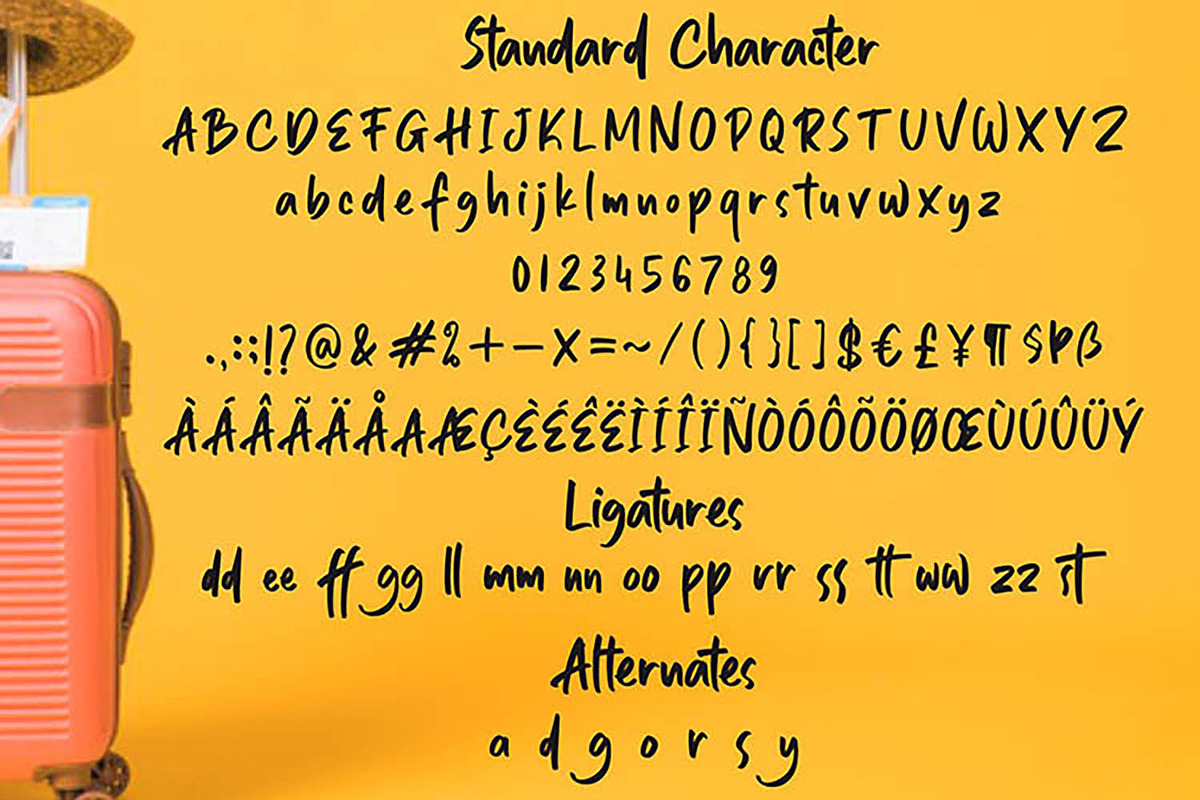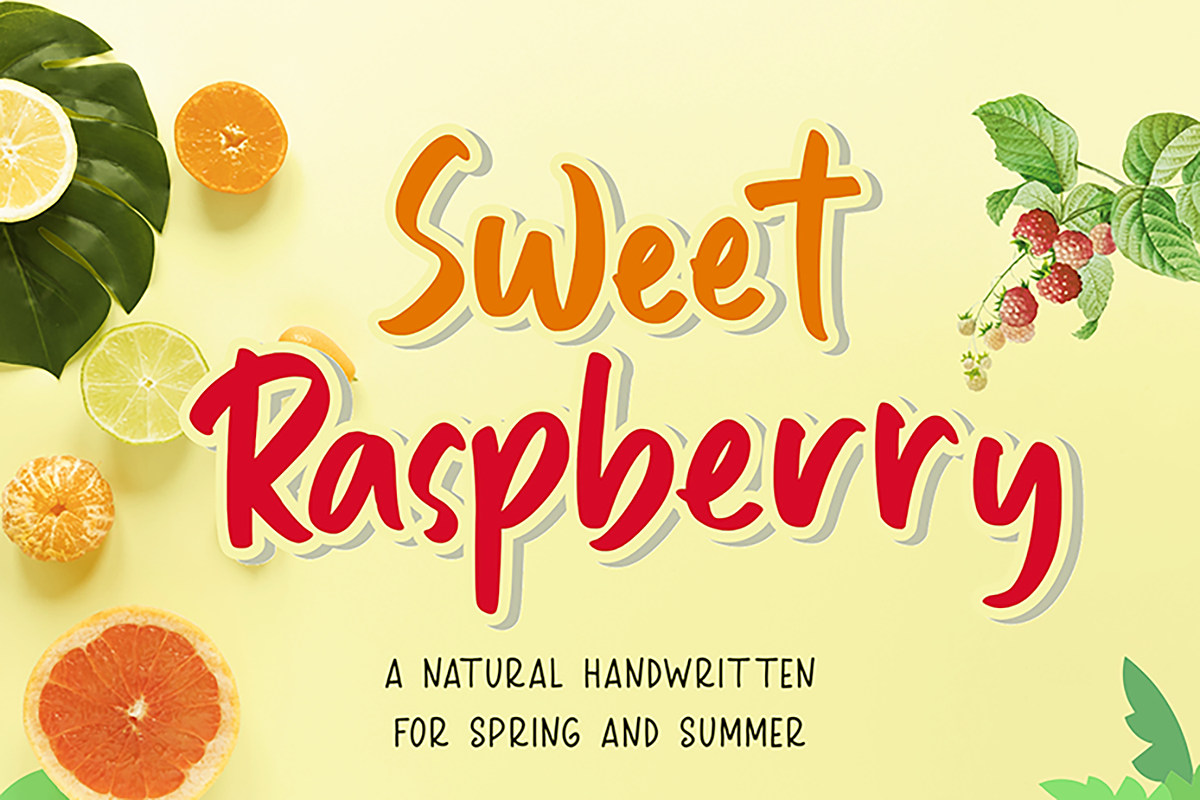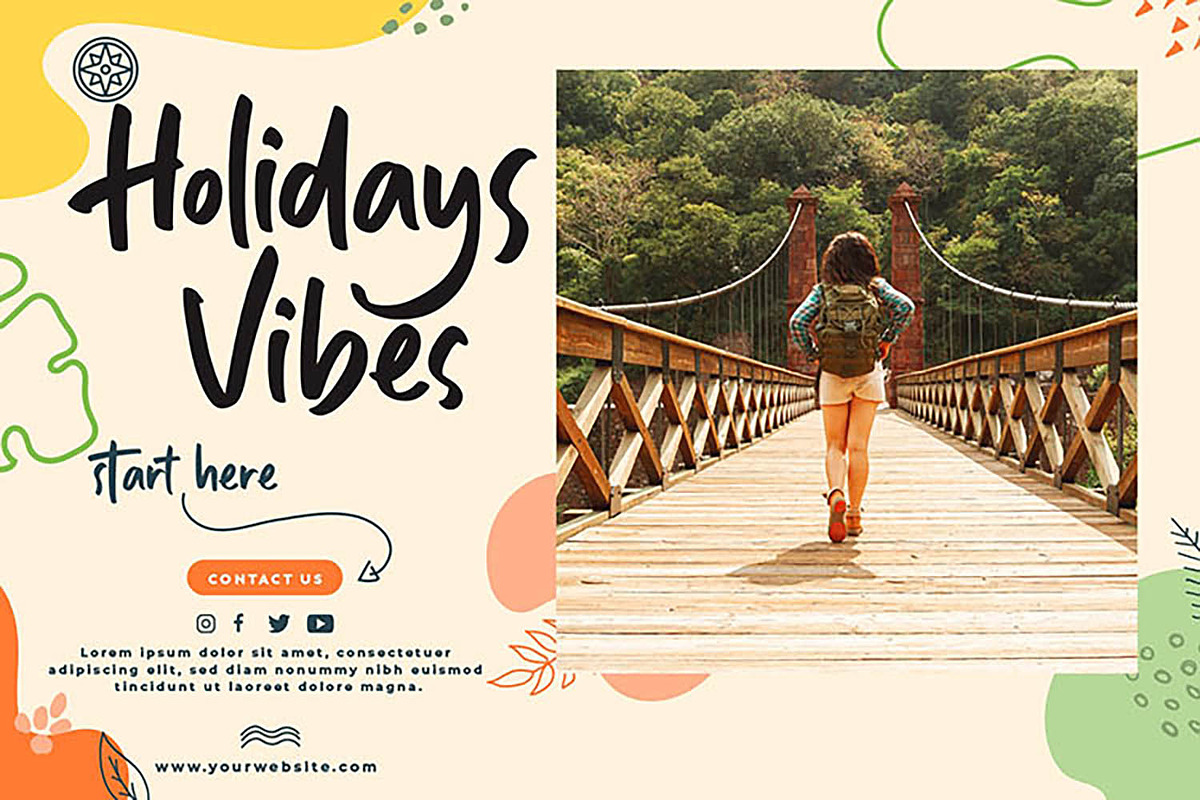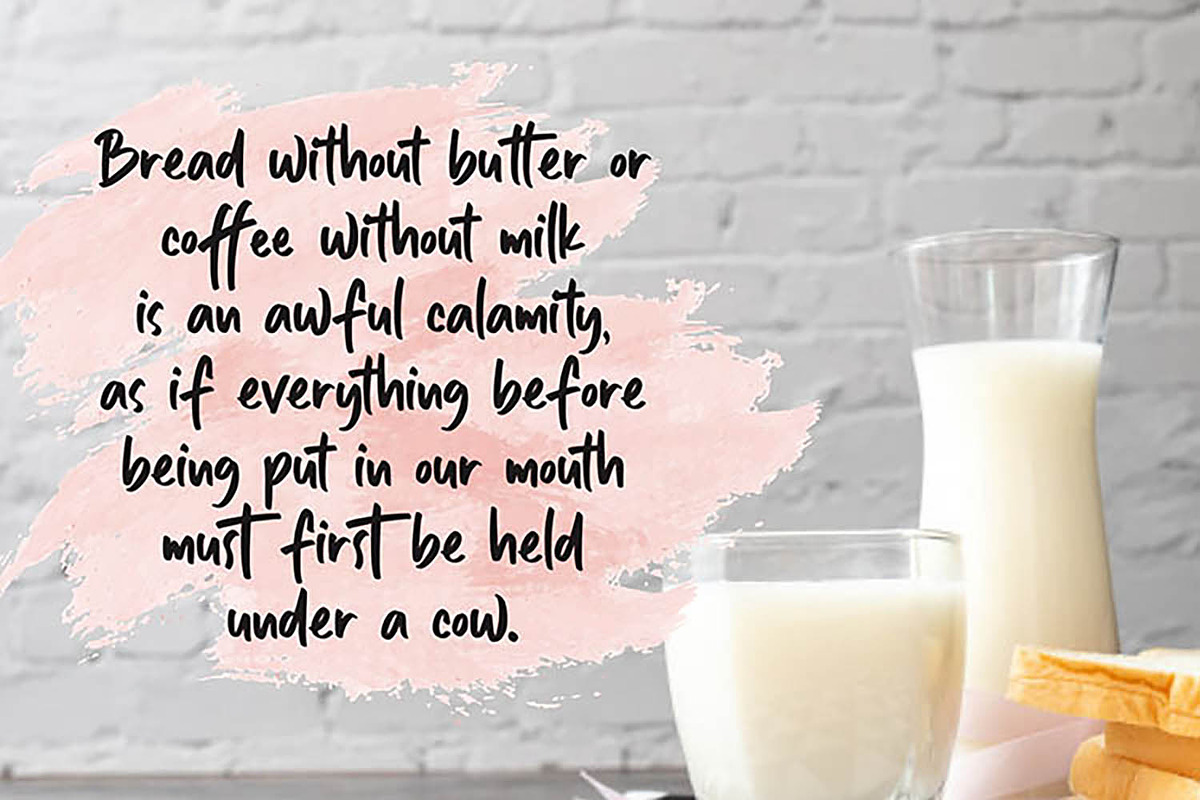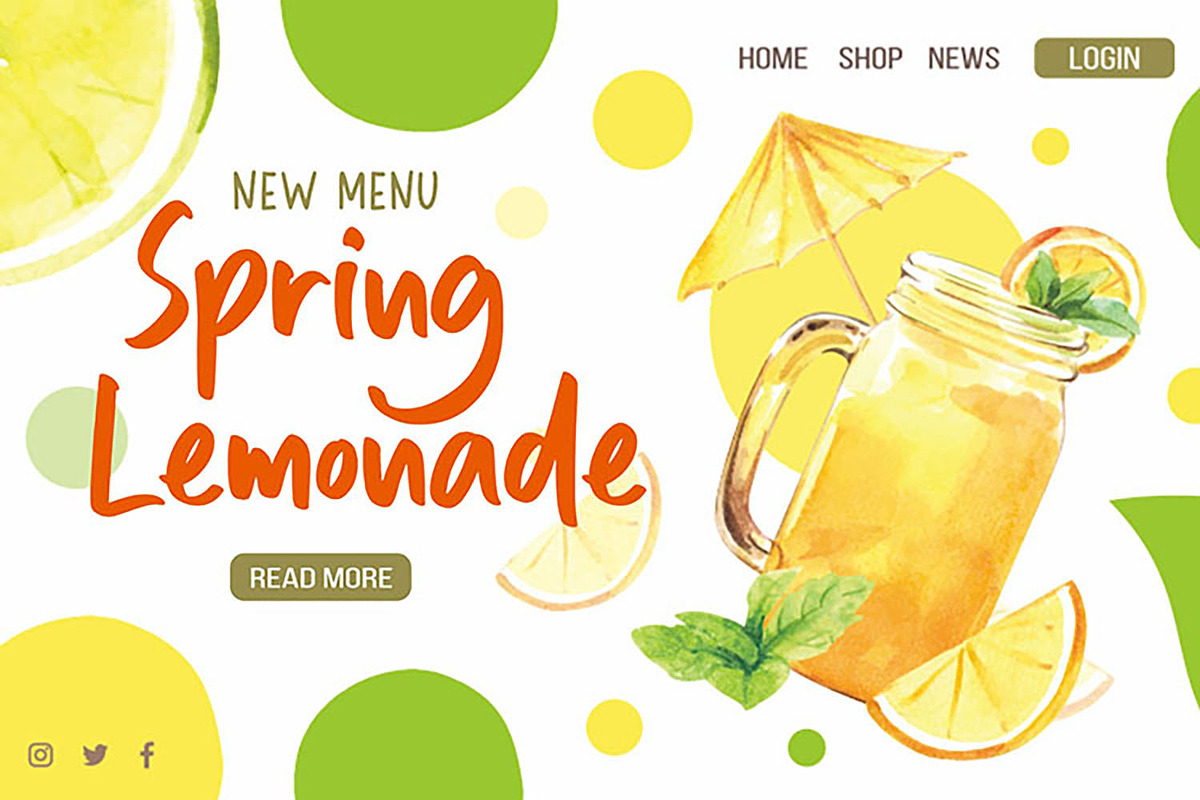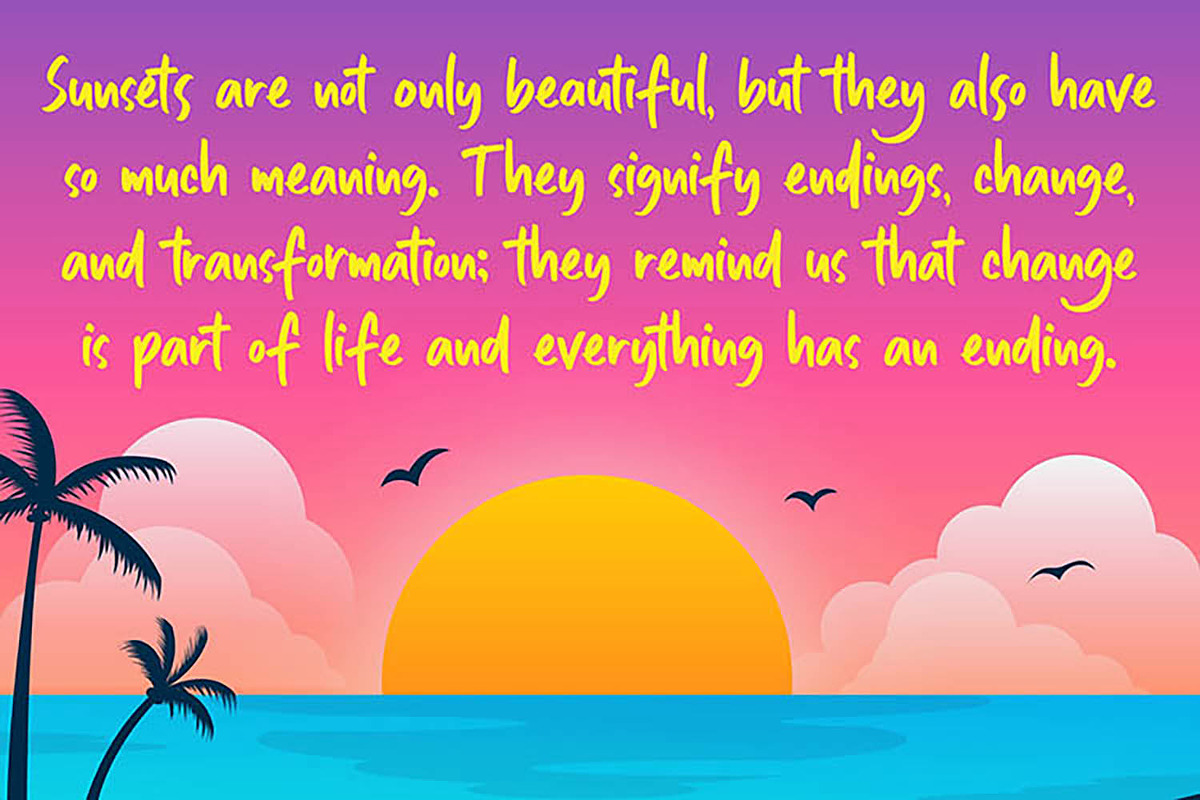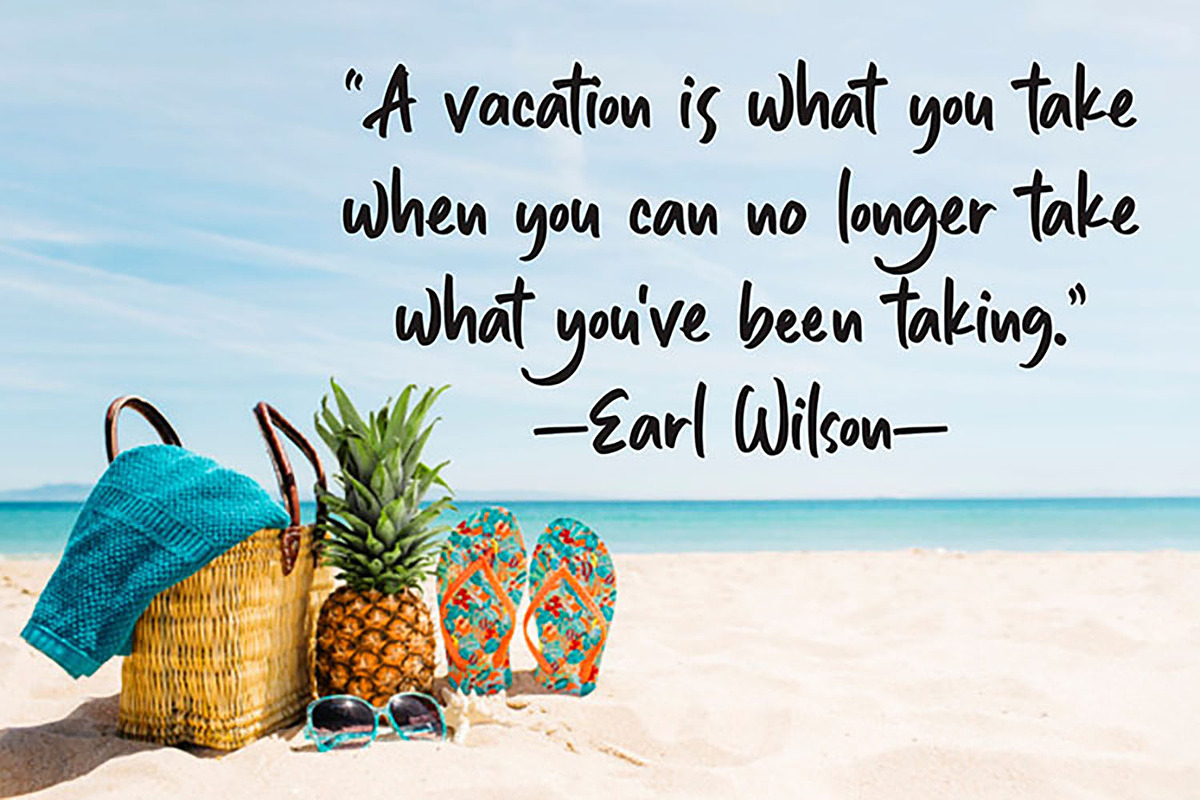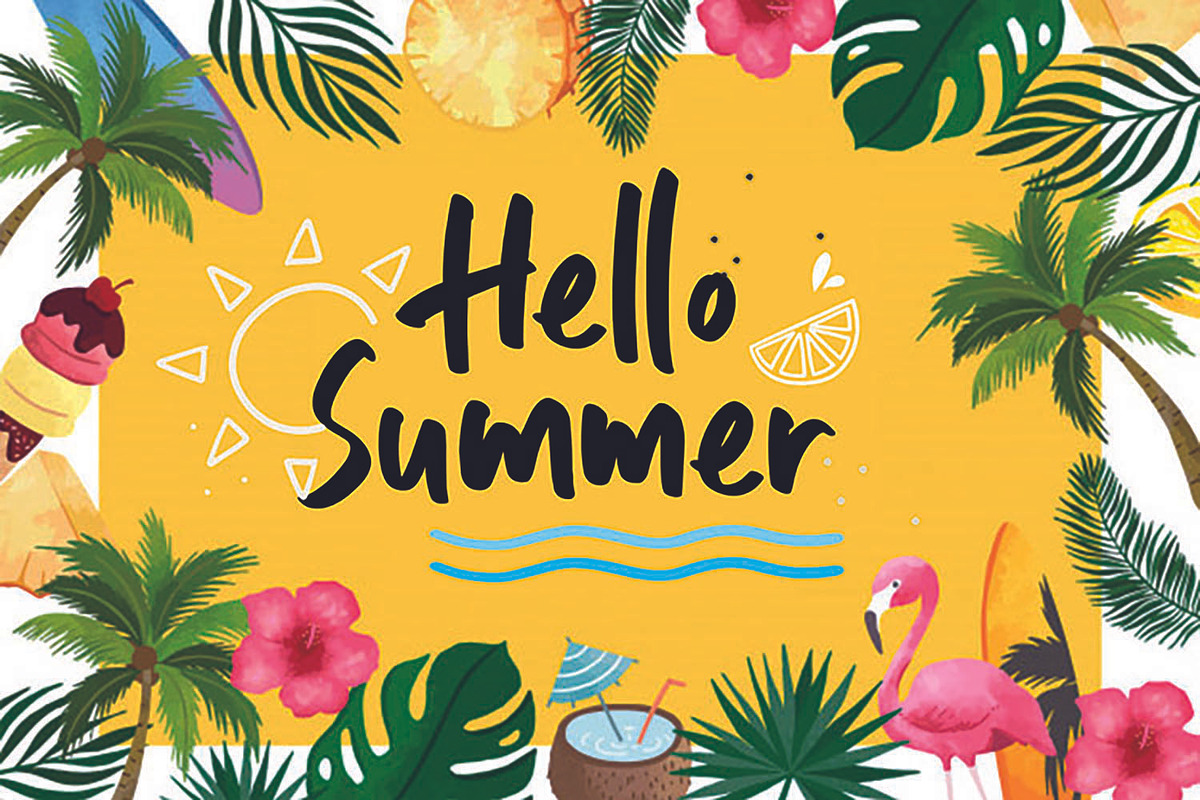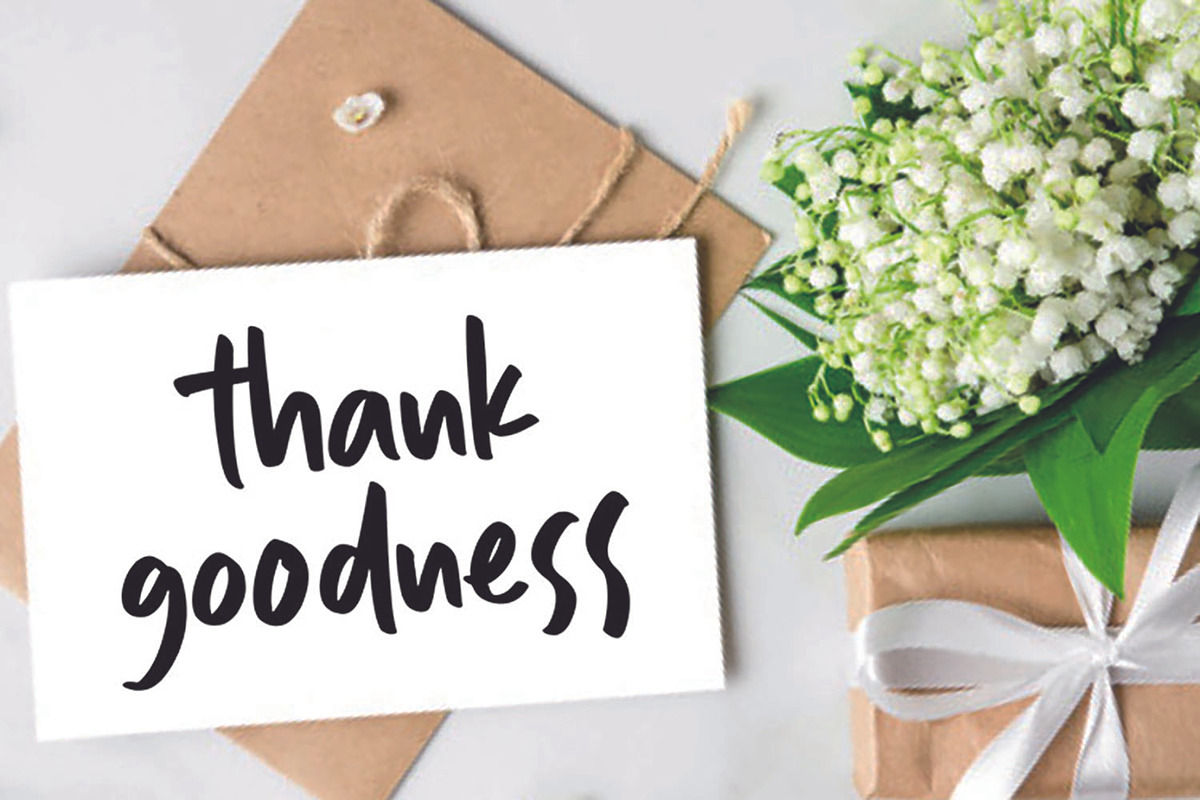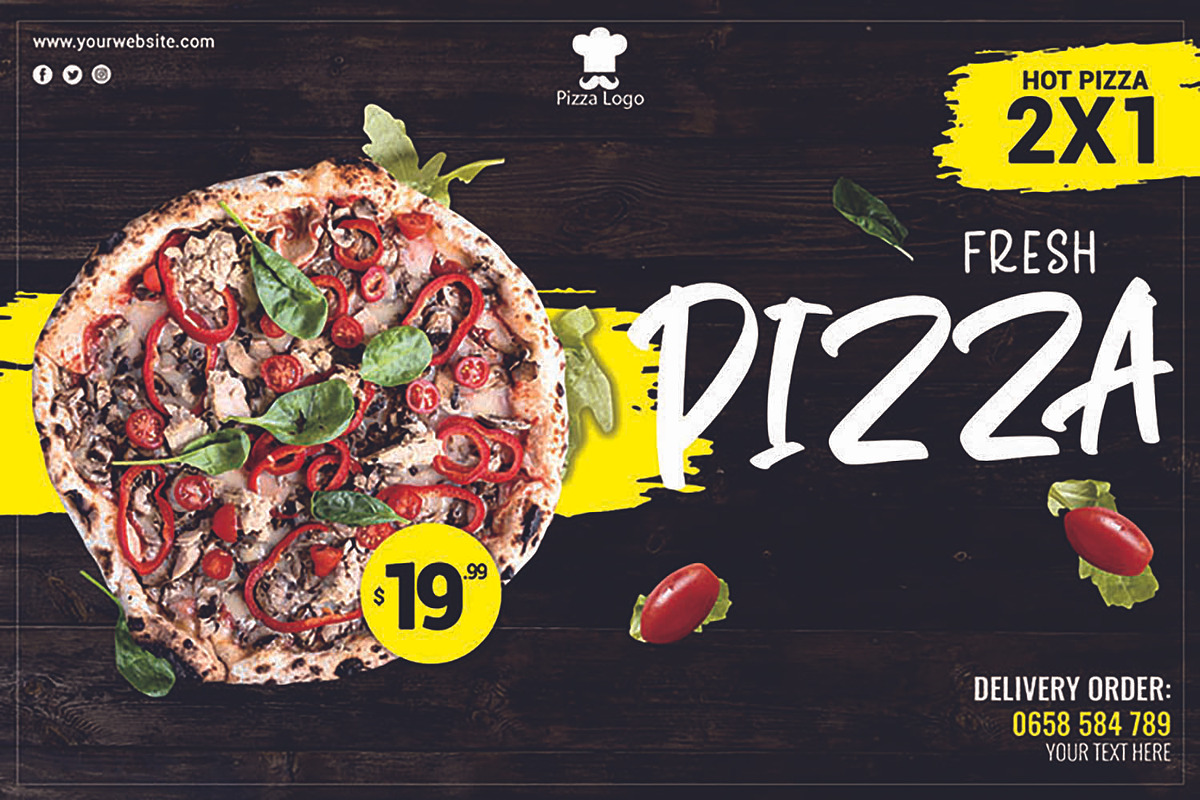
Sweet Raspberry
Sweet Raspberry is a cute and casual handwritten font with an incredibly friendly feel. It’s is a playful and adventurous display that radiates authenticity. Whether you’re looking for fonts for Instagram or calligraphy scripts for DIY projects, this font will turn any creative idea into a true piece of art!
This font is PUA encoded which means you can access all of the stunning glyphs and swashes with ease! It also features a wealth of special features including alternate glyphs and ligatures.